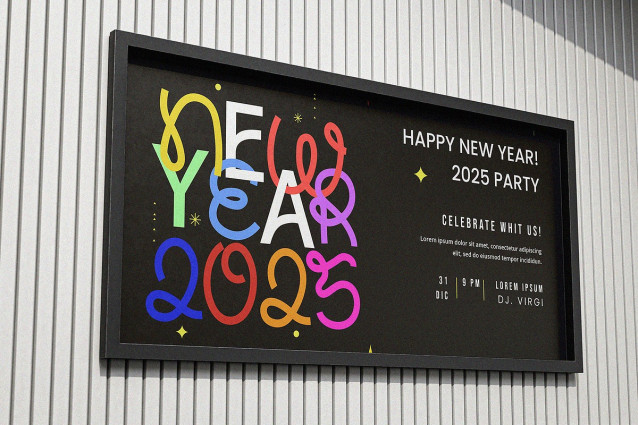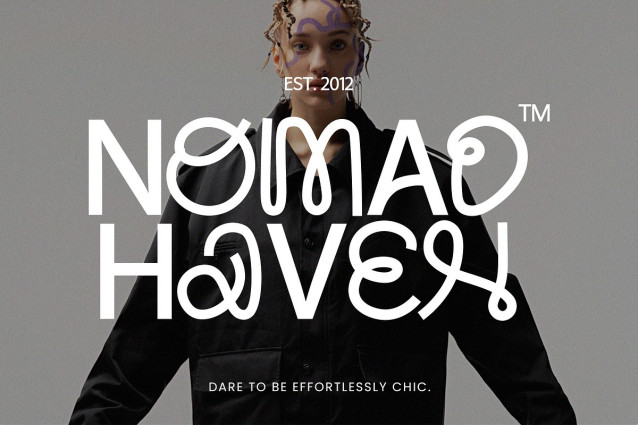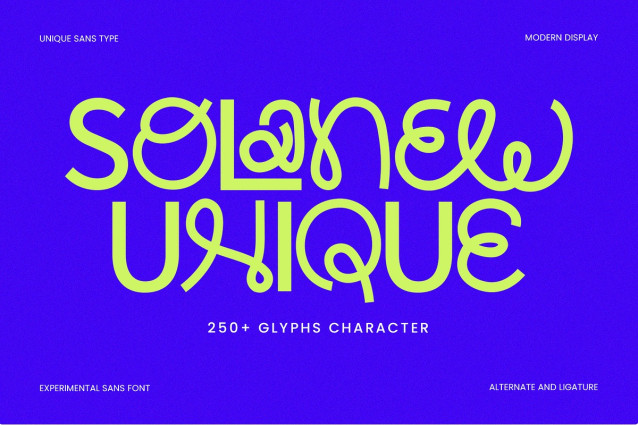
Solanew Font
Solanew Font – Sans Playful Font. Fun and versatile sans-serif font, perfect for playful designs! Ideal for logos, posters, and branding with a modern twist.